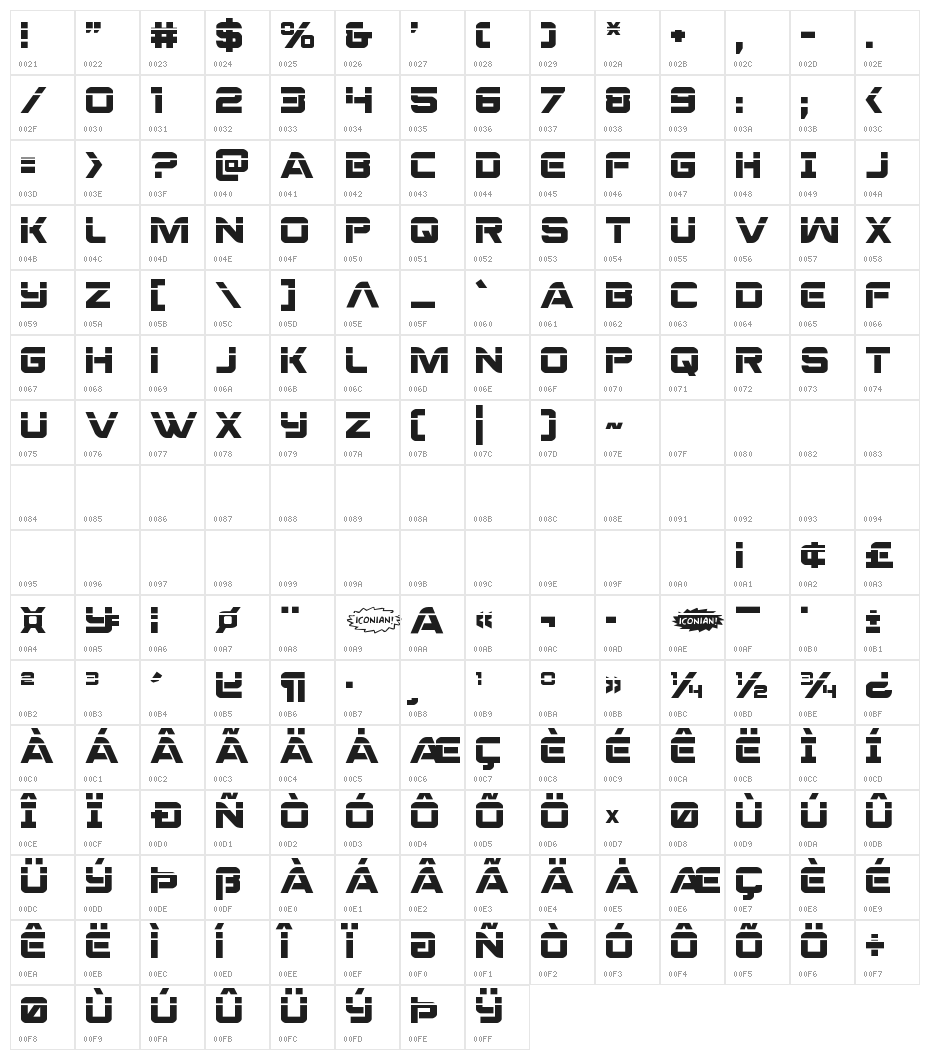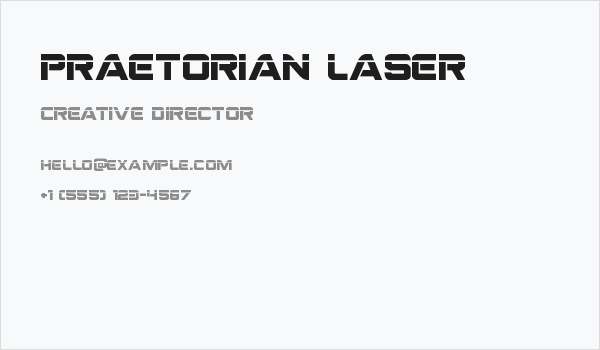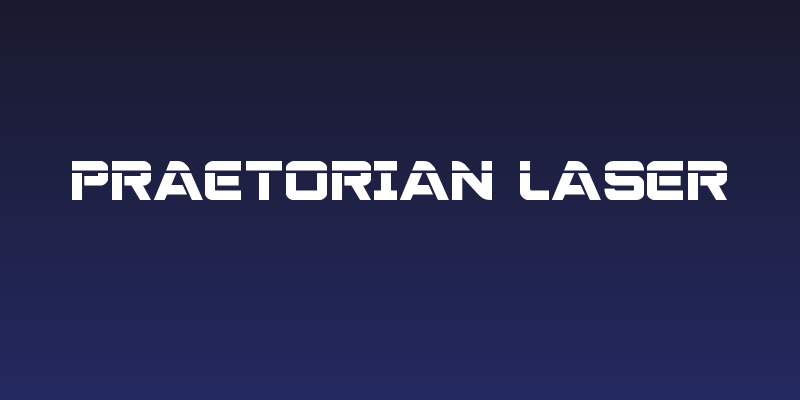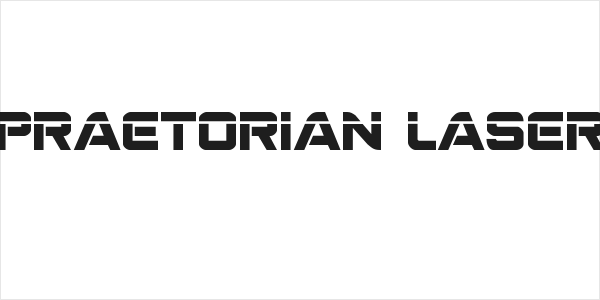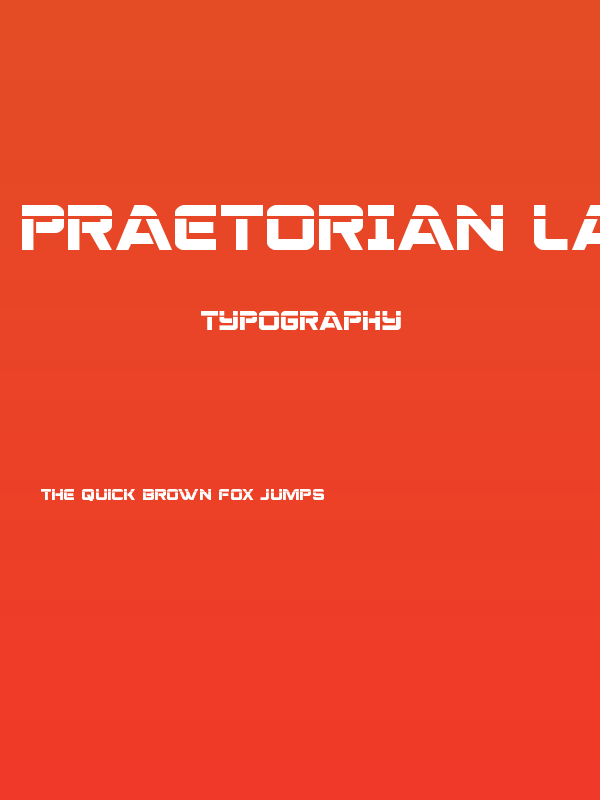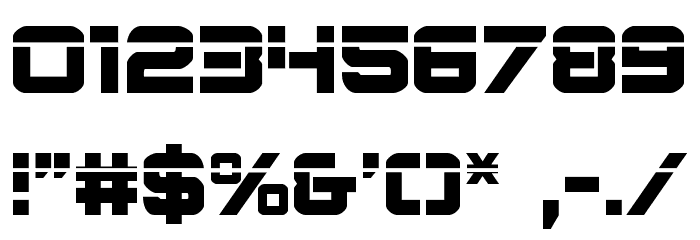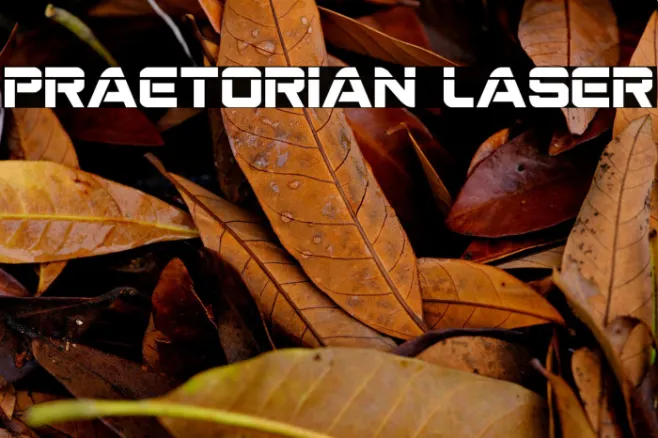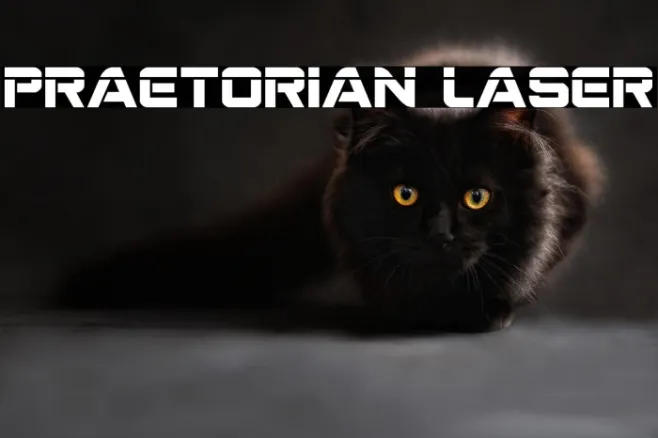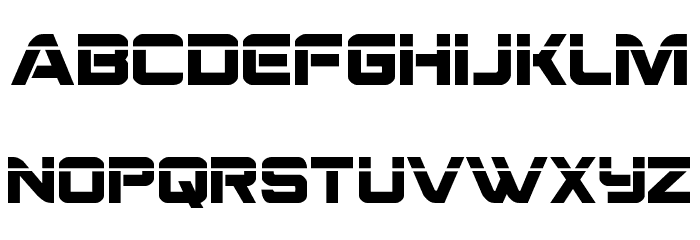
Praetorian Laser Font
Praetorian Laser Description
This font features a bold, futuristic design with a strong geometric structure. The characters are crafted with sharp angles and a blocky appearance, giving it a distinct, high-tech look. The uppercase letters are uniform in height, while the numbers and special characters maintain the same bold, angular style. The font's design is reminiscent of digital displays or sci-fi themes, making it ideal for projects that require a modern and edgy aesthetic. The consistent stroke width across all characters contributes to its bold presence, while the spacing between characters is tight, enhancing its compact and impactful look.